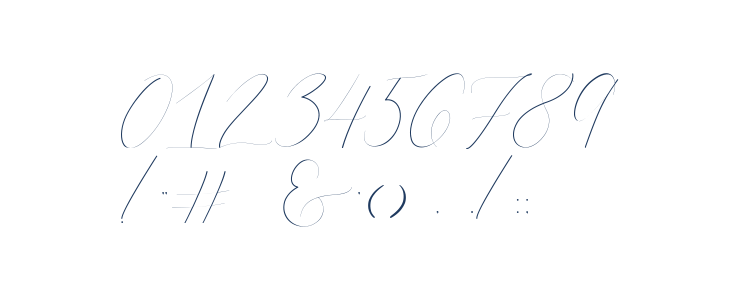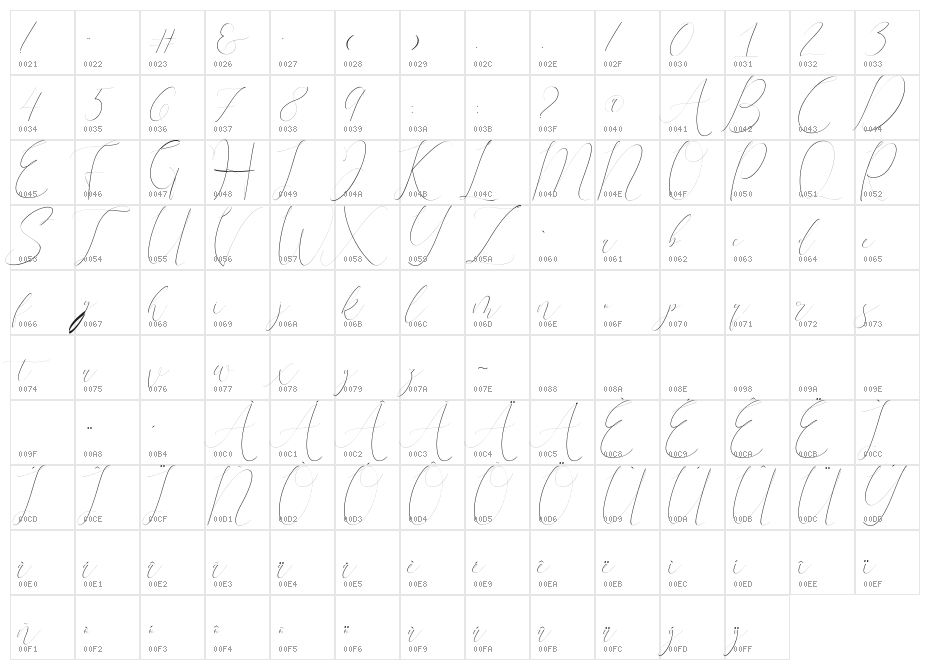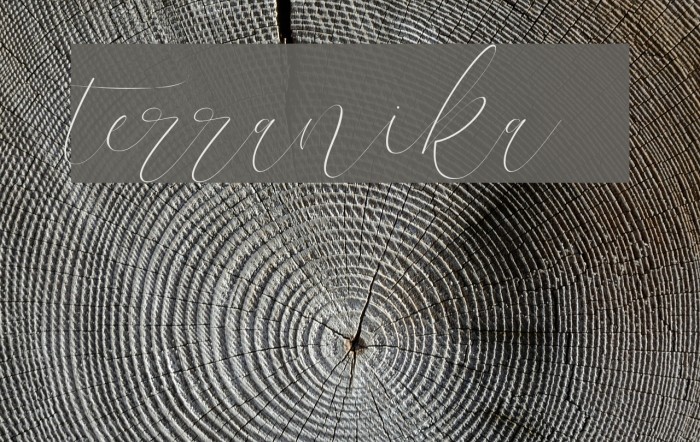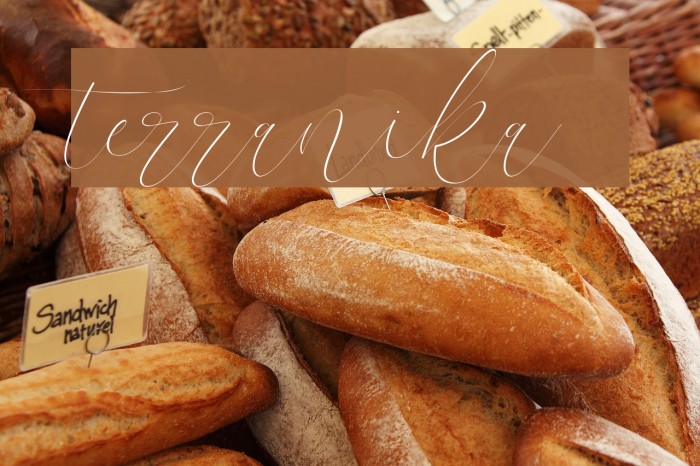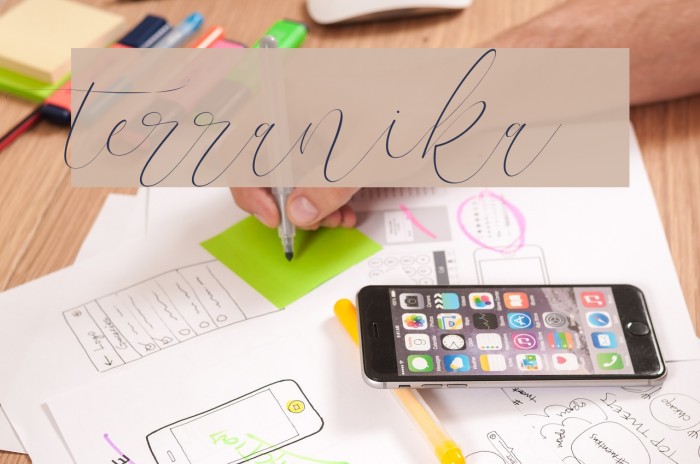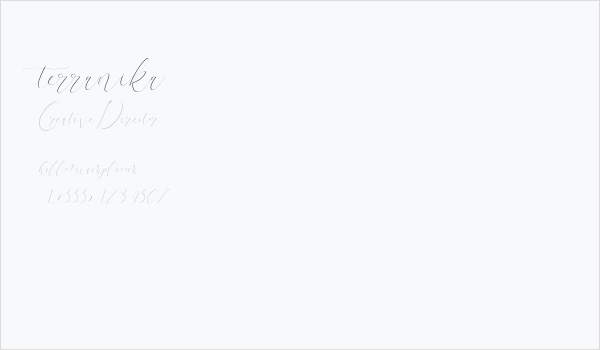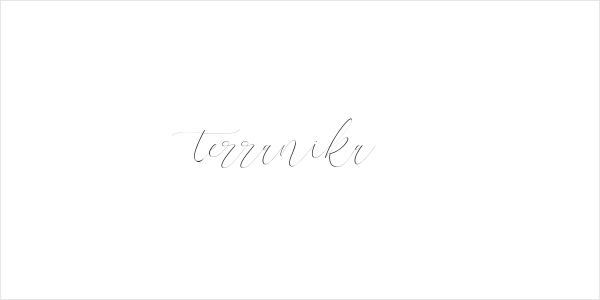
terranika Font
terranika Description
This font exhibits an elegant and flowing script style, characterized by its thin, delicate strokes and graceful curves. The letters are interconnected, creating a seamless and fluid appearance that mimics the natural motion of handwriting. The uppercase letters are slightly more ornate, with extended loops and flourishes, while the lowercase letters maintain a consistent rhythm and balance. The numerals and special characters are designed to complement the overall aesthetic, maintaining the same level of sophistication and fluidity. This font is ideal for projects that require a touch of elegance and personal flair.
| Proposed Projects | Wedding invitations, elegant branding, personal stationery, and artistic quotes. |